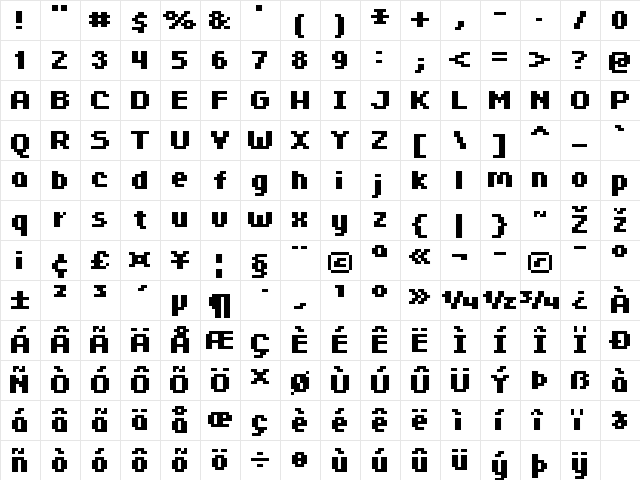
FFF Minitower Bold Extended Regular
Design Context for FFF Minitower Bold Extended Typeface
FFF Minitower Bold Extended is a composed and adaptable typeface that performs quietly and consistently across a wide range of design contexts. The heavy weight commands attention and anchors typographic hierarchies.
Pro Tip: Use FFF Minitower Bold Extended in both headline and body roles to test its range before committing to a single application.